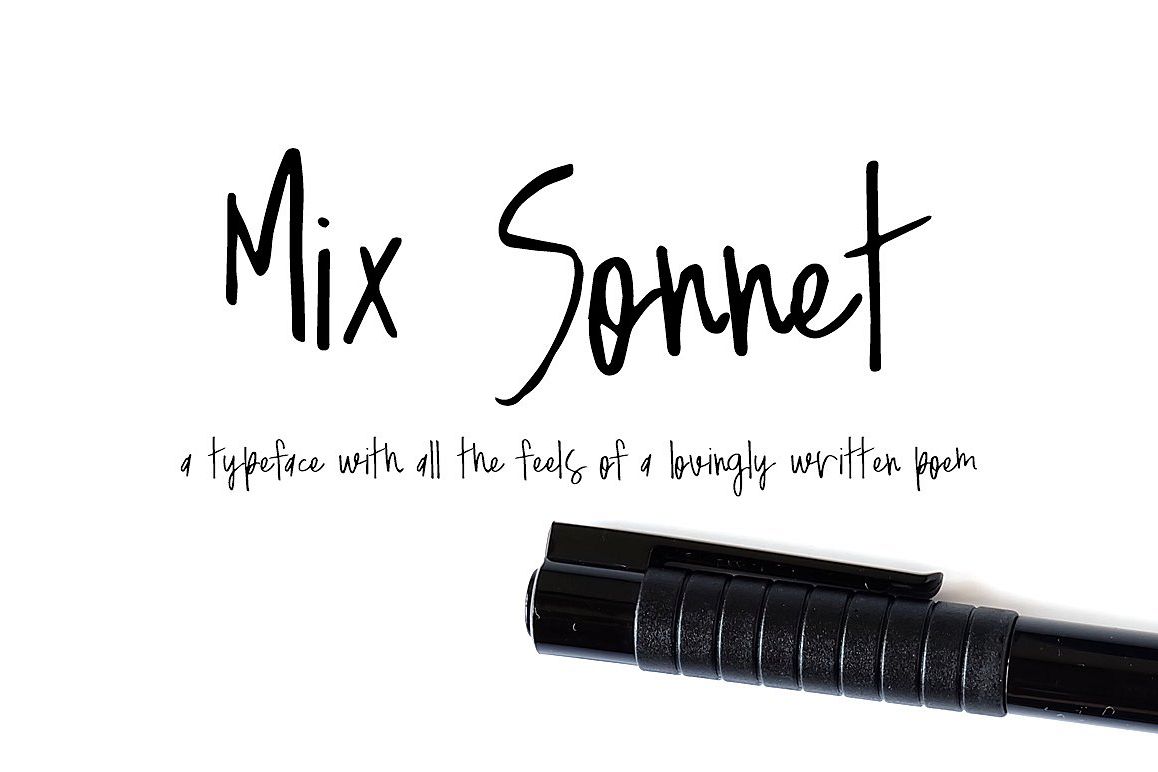
Sonnet - a font with the feels of a lovingly written poem
Mix Sonnet
MIX SONNET a typeface with all the feels of a lovingly written poem, is a handwritten semi-script typeface fit for handmade and DIY themed projects.